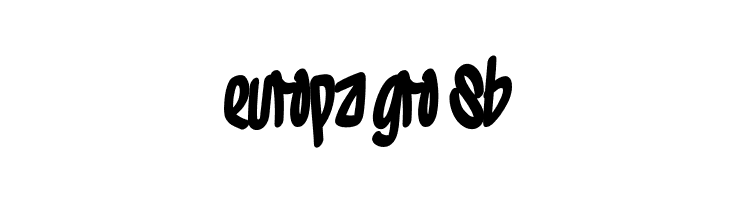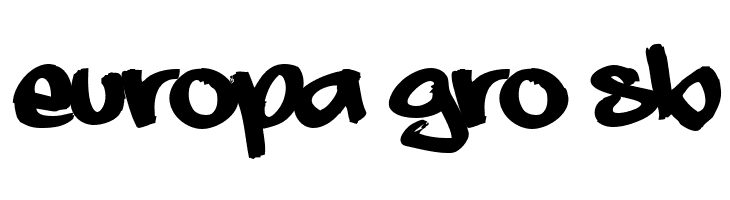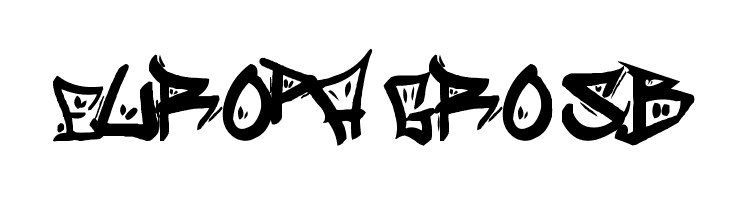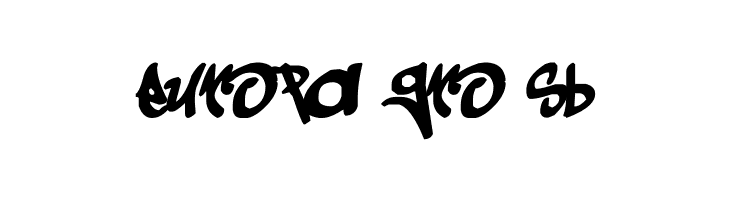
( Fonts by www.endie.prv.pl )
A bold, graffiti-inspired font with dynamic and expressive letterforms.
( Fonts by Rob Dobi - Toxic Type - www.dobi.nu )
A bold, angular font with a geometric, edgy style reminiscent of graffiti.
( Fonts by JW )
A bold, graffiti-inspired font with a dynamic, hand-drawn style.
A bold, graffiti-inspired font with sharp, angular lines and an urban aesthetic.